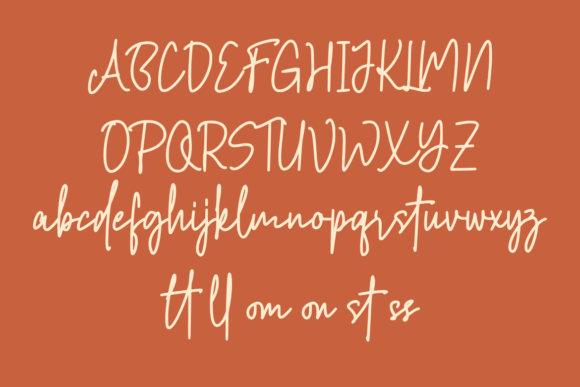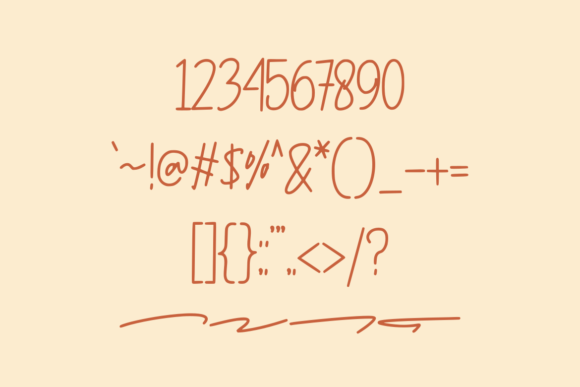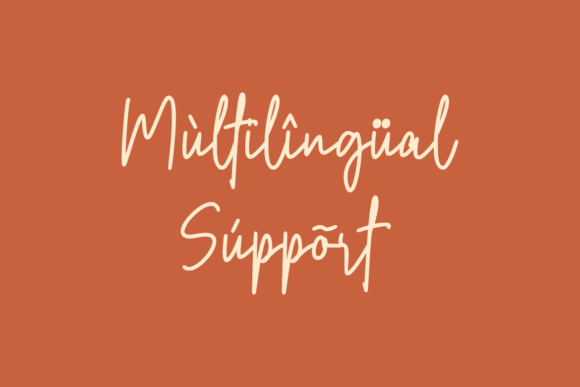
Introduction to Herdiny Font
Herdiny is a modern and cursive script font capable of adding naturally exquisite flair to your creative design projects.
Herdiny is a modern and cursive script font capable of adding naturally exquisite flair to your creative design projects!
Key Features of Herdiny Font